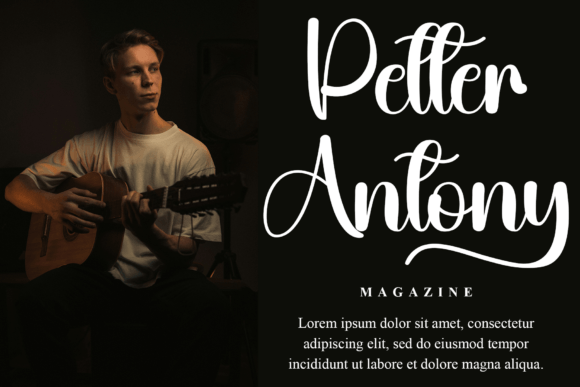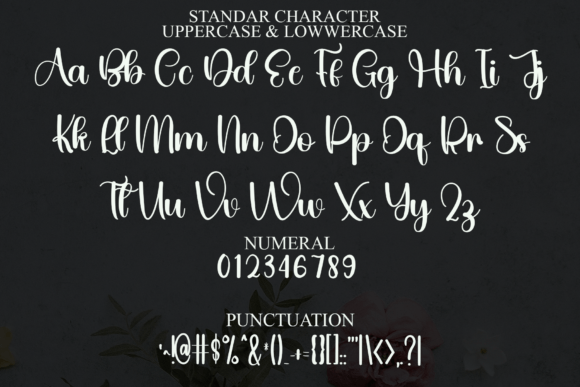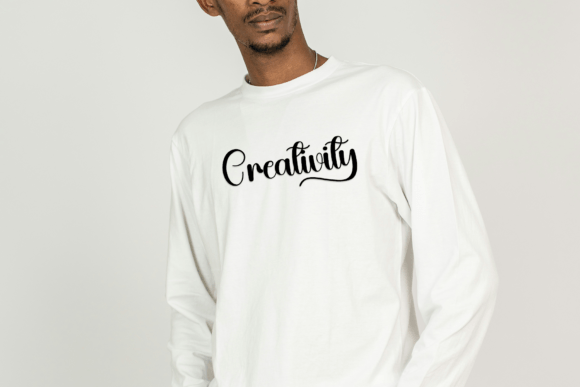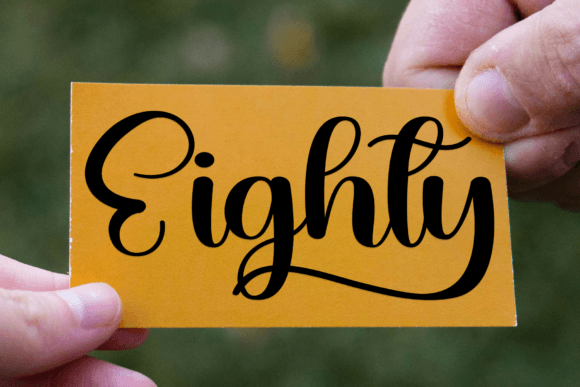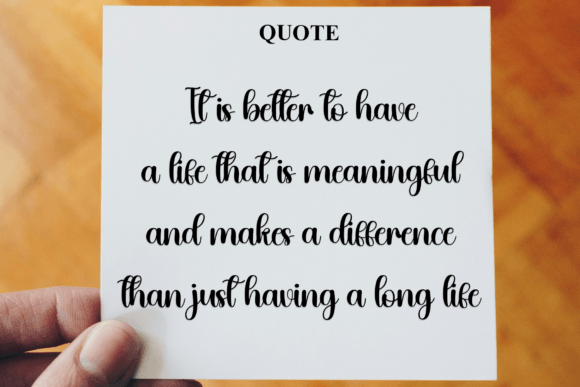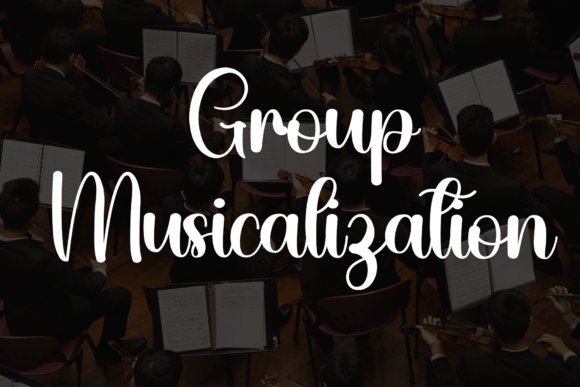
Introduction to Musical Academy Font
Have you ever stumbled upon a design that just makes your heart skip a beat? For me, it was a wedding invitation with a beautiful, elegant font that set the tone for the entire event. The moment I laid eyes on it, I knew I had to learn more about it. After some digging, I discovered the Musical Academy Font – a stylish and sophisticated font that exudes elegance and charm.
As a designer, I know how crucial it is to have a high-quality design resource like Musical Academy Font in our toolkit. With its fluid strokes and natural flow, this font brings a sense of warmth and creativity to any project. Whether you’re working on a personal branding project, a social media campaign, or a creative project, Musical Academy Font is the perfect addition to elevate your design to the next level.
Key Features of Musical Academy Font
- Unique and elegant design, perfect for creative projects such as music sheets, posters, and flyers.
- Designed to be highly legible, even at small font sizes, making it perfect for music sheets and other creative projects.
Honest Review: Musical Academy Font
As a designer, I’m always on the lookout for high-quality design resources to enhance my creative projects. The Musical Academy Font has been a great addition to my collection. One of the standout features of this font is its beautiful, elegant design that evokes a sense of sophistication and refinement. ✨
One of the things I appreciate about the Musical Academy Font is its transparent background, which makes it easy to customize and integrate into various design elements. The font also comes in a range of styles and weights, making it a versatile design resource for a variety of projects.
- Beautiful, elegant design that adds sophistication to any project
- Range of styles and weights for versatility
- May not be suitable for bold, playful designs
- Some users may find the font’s elegance too formal for certain projects
The Musical Academy Font is ideal for creative projects, such as music-themed designs, event invitations, and educational materials. It’s also suitable for branding and marketing materials, such as logos and business cards.